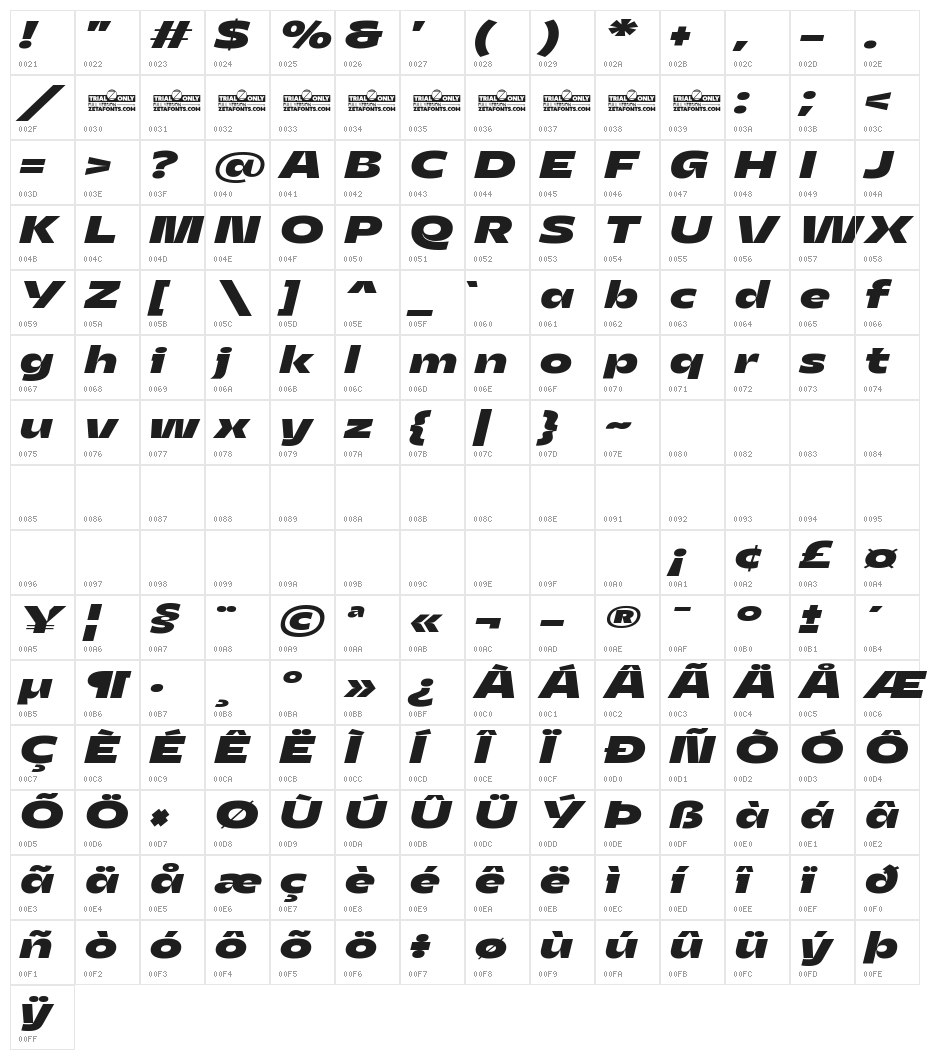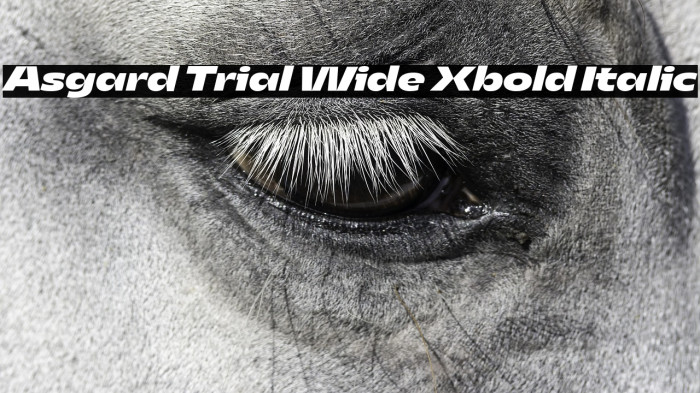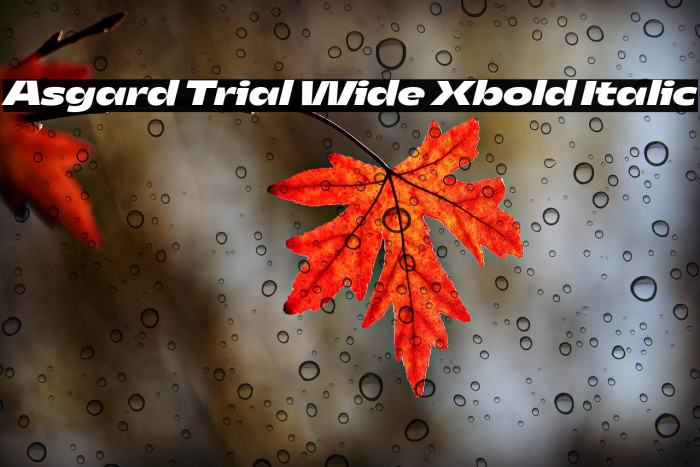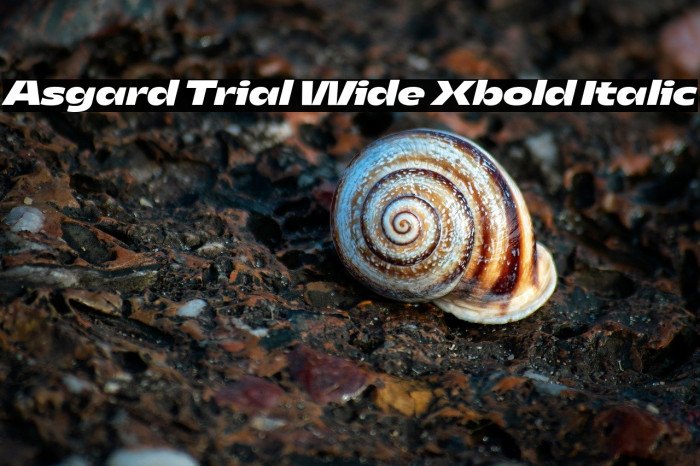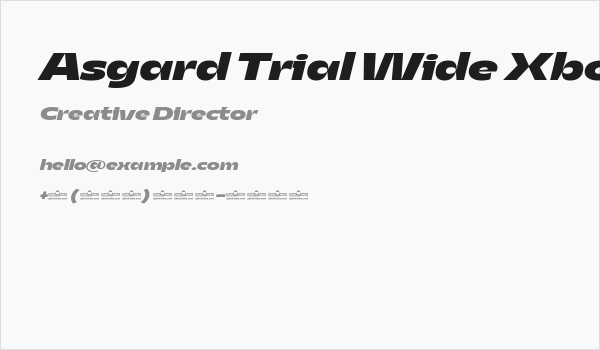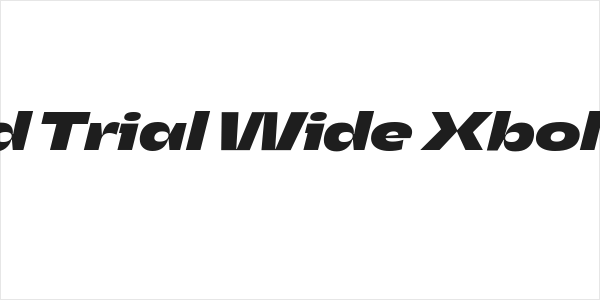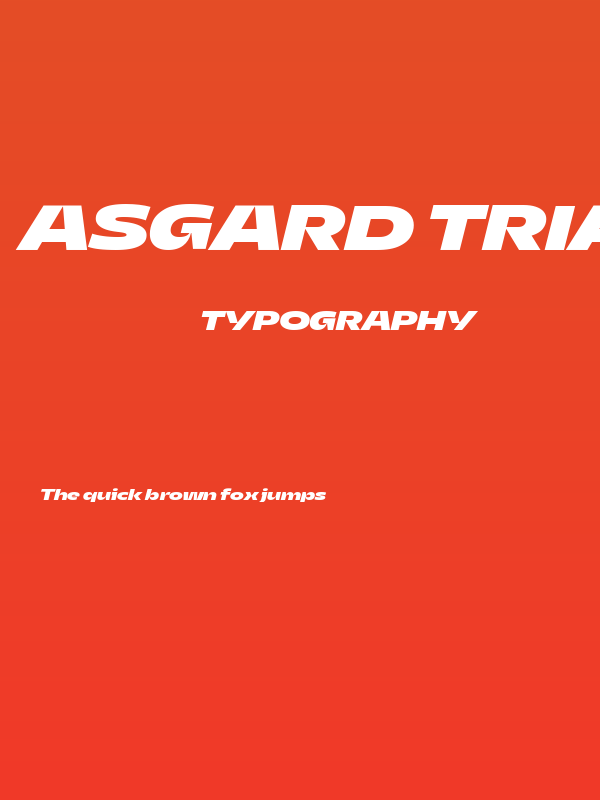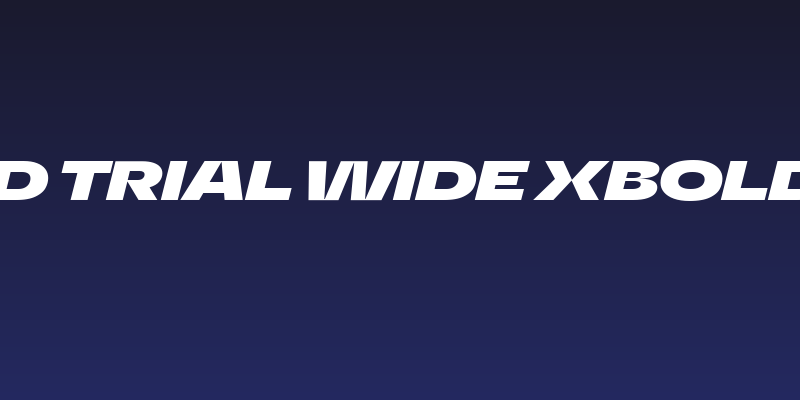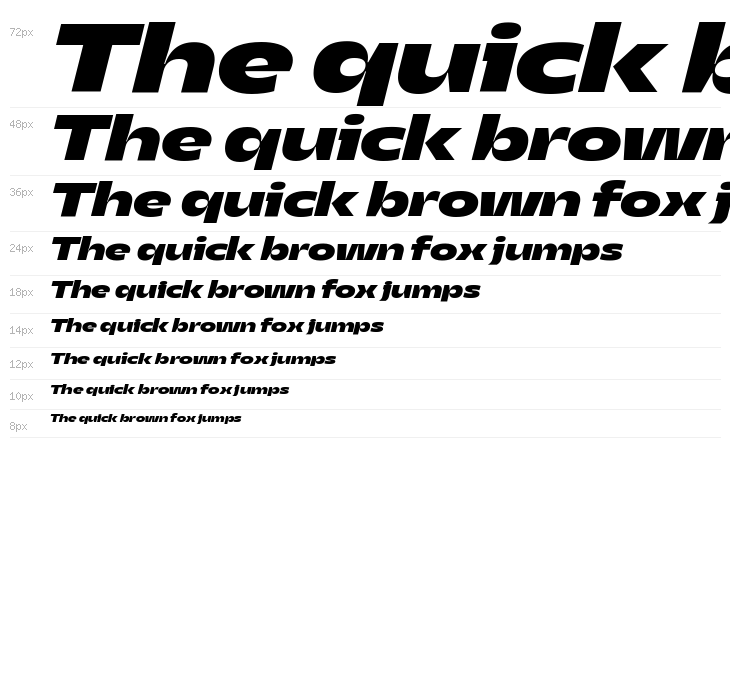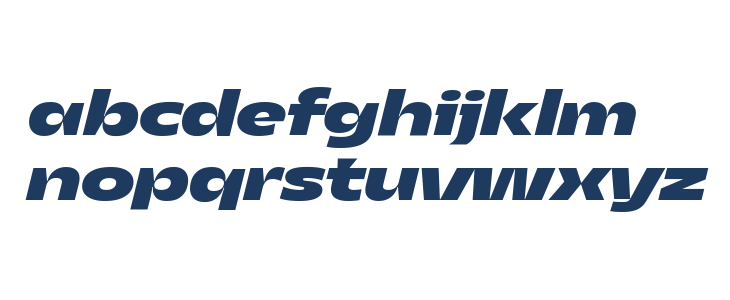
Asgard Trial Wide Xbold Italic Font
Asgard Trial Wide Xbold Italic Description
This font features a bold and dynamic style with a strong italic slant, giving it a sense of motion and energy. The characters are wide and expansive, contributing to a powerful presence on the page. The uppercase letters are particularly striking, with sharp angles and clean lines that convey a modern and futuristic aesthetic. The lowercase letters maintain the same boldness, ensuring consistency throughout the text. The numerals and special characters are equally robust, making this font versatile for various applications. The overall design is sleek and contemporary, ideal for making a bold statement.